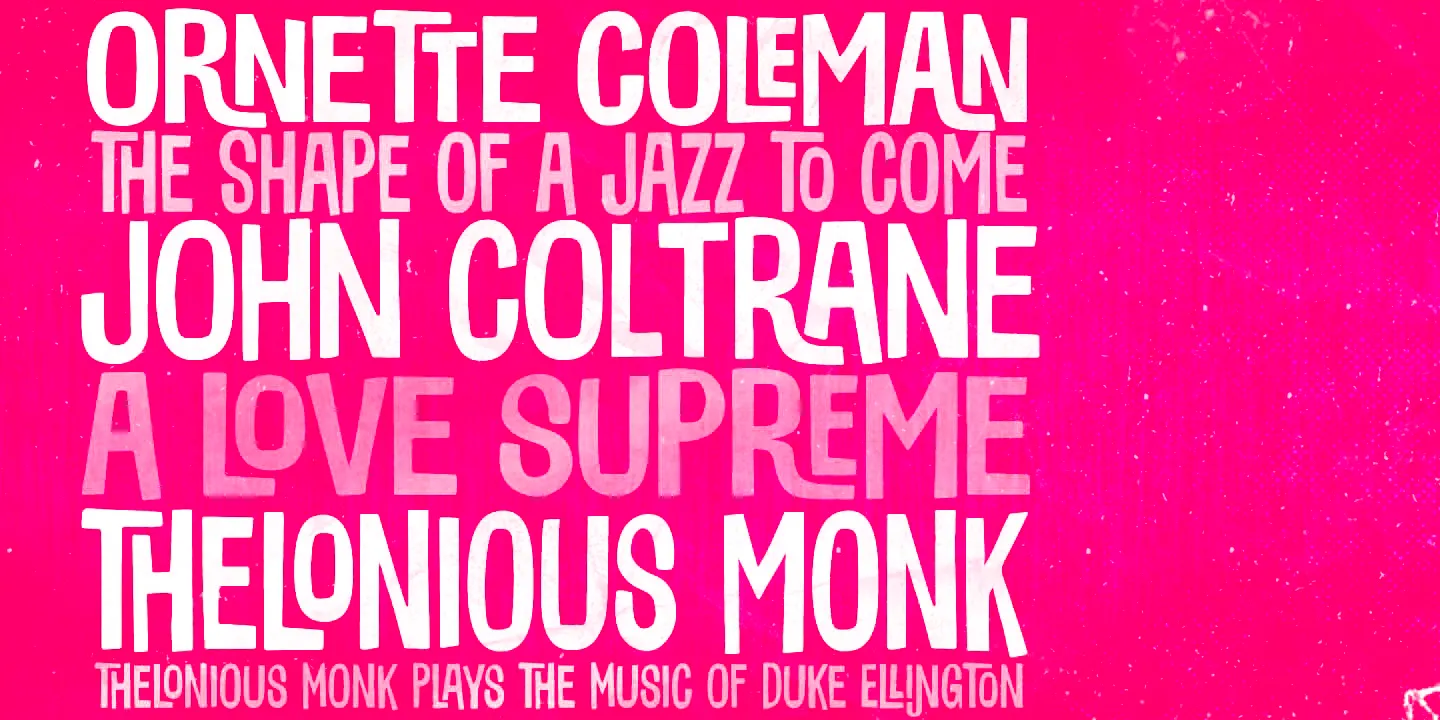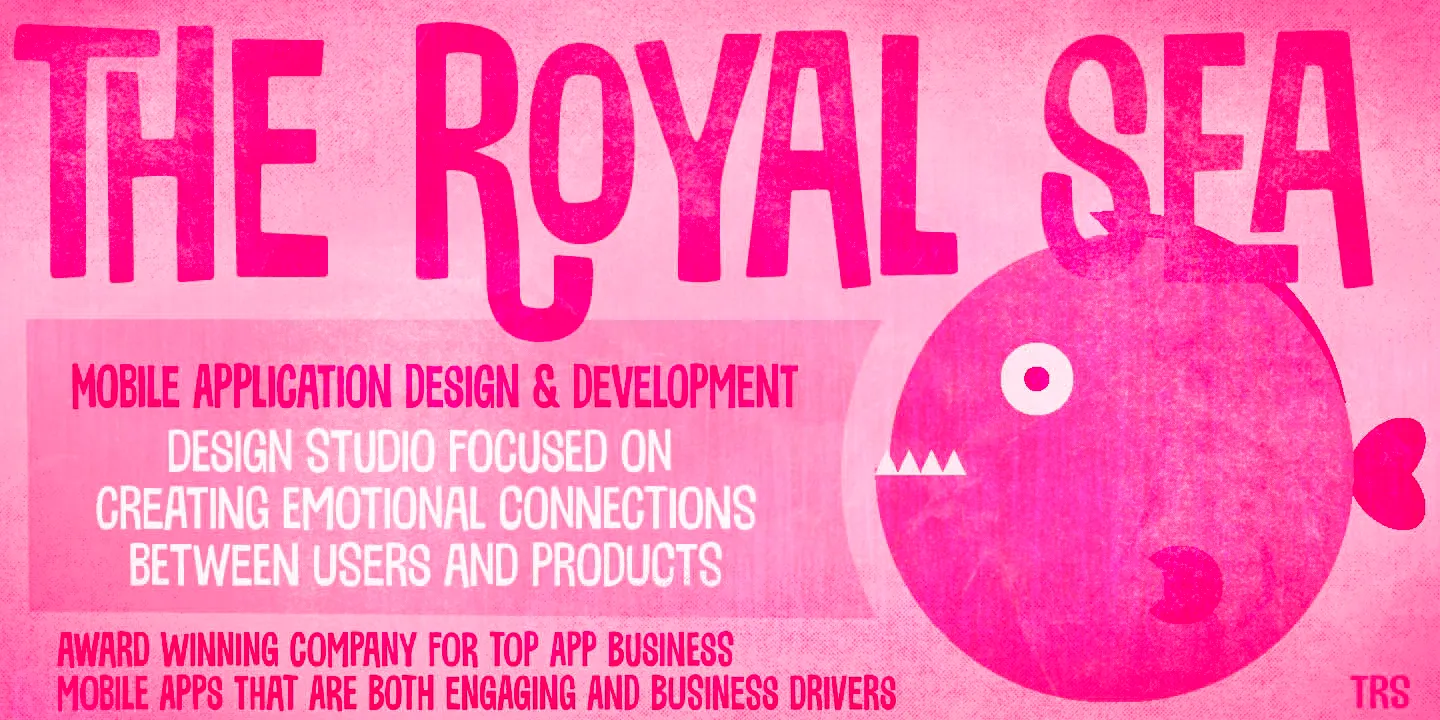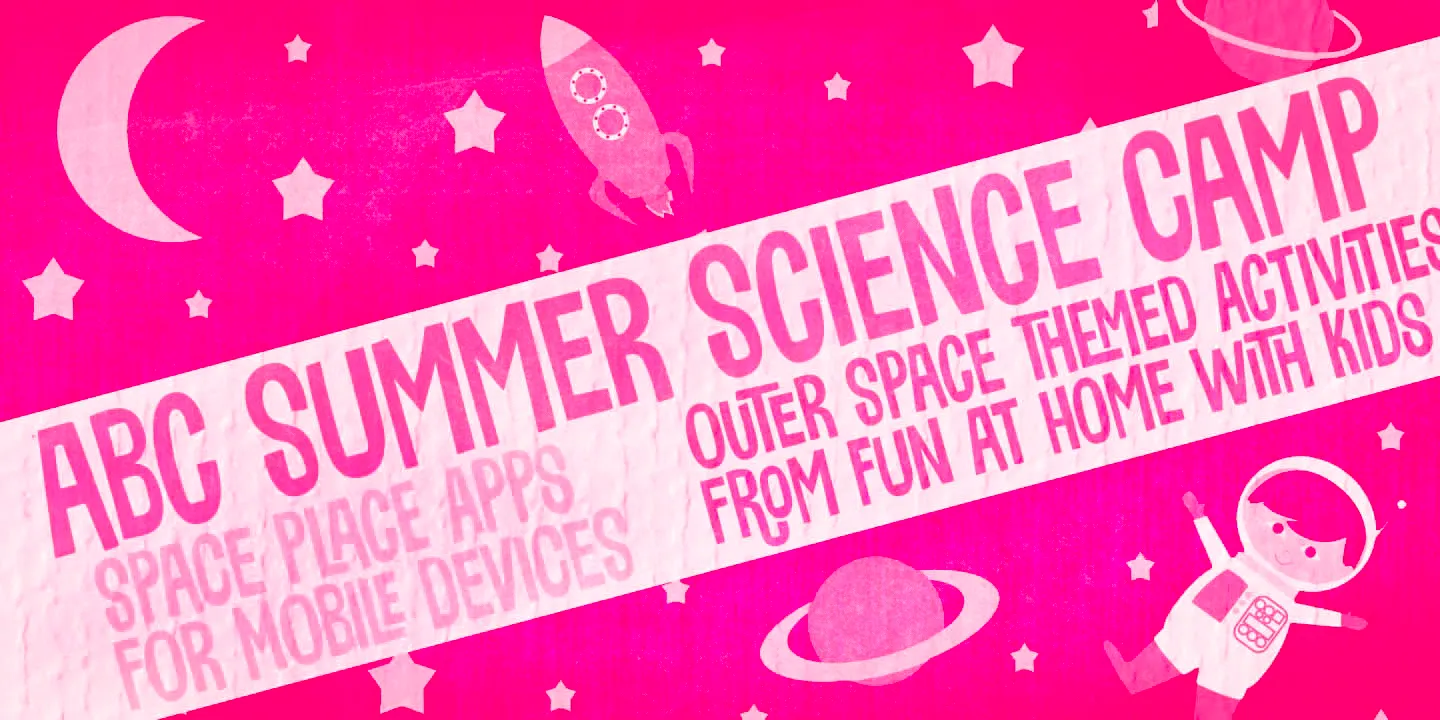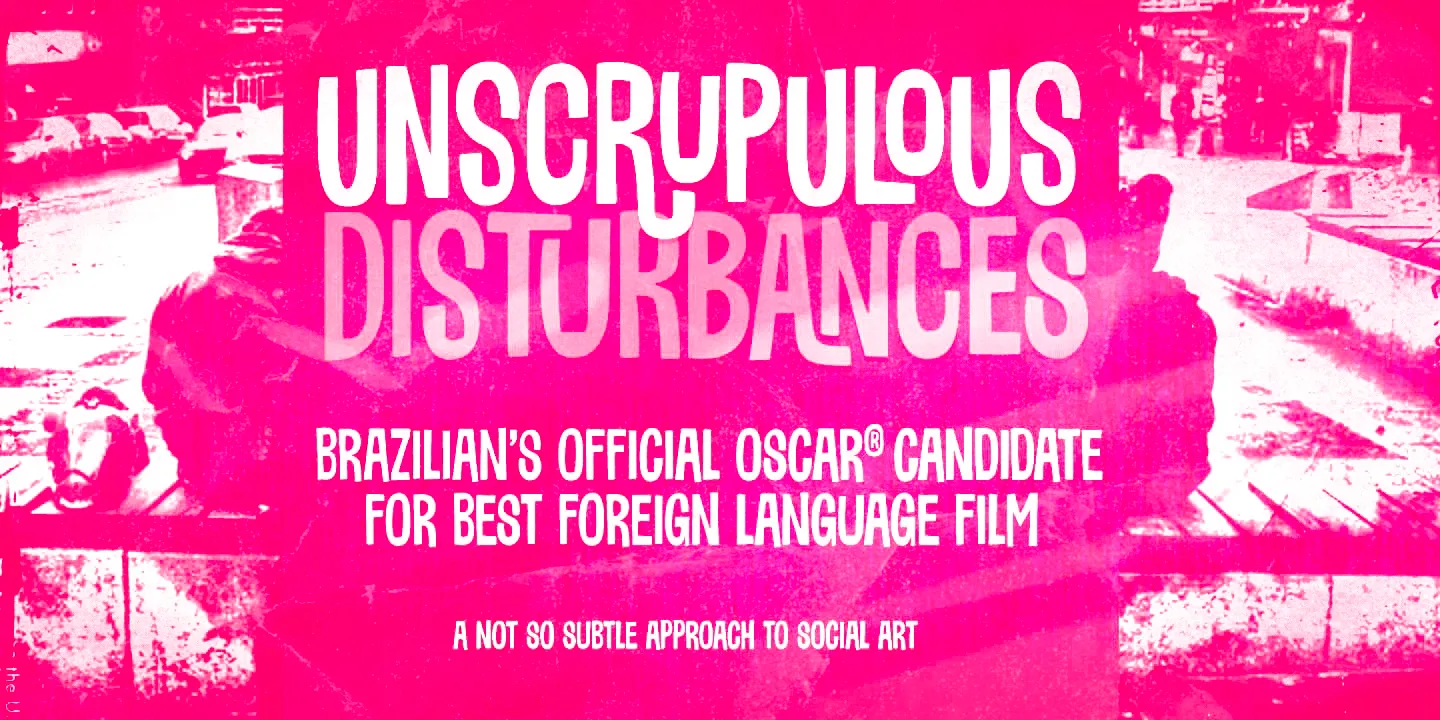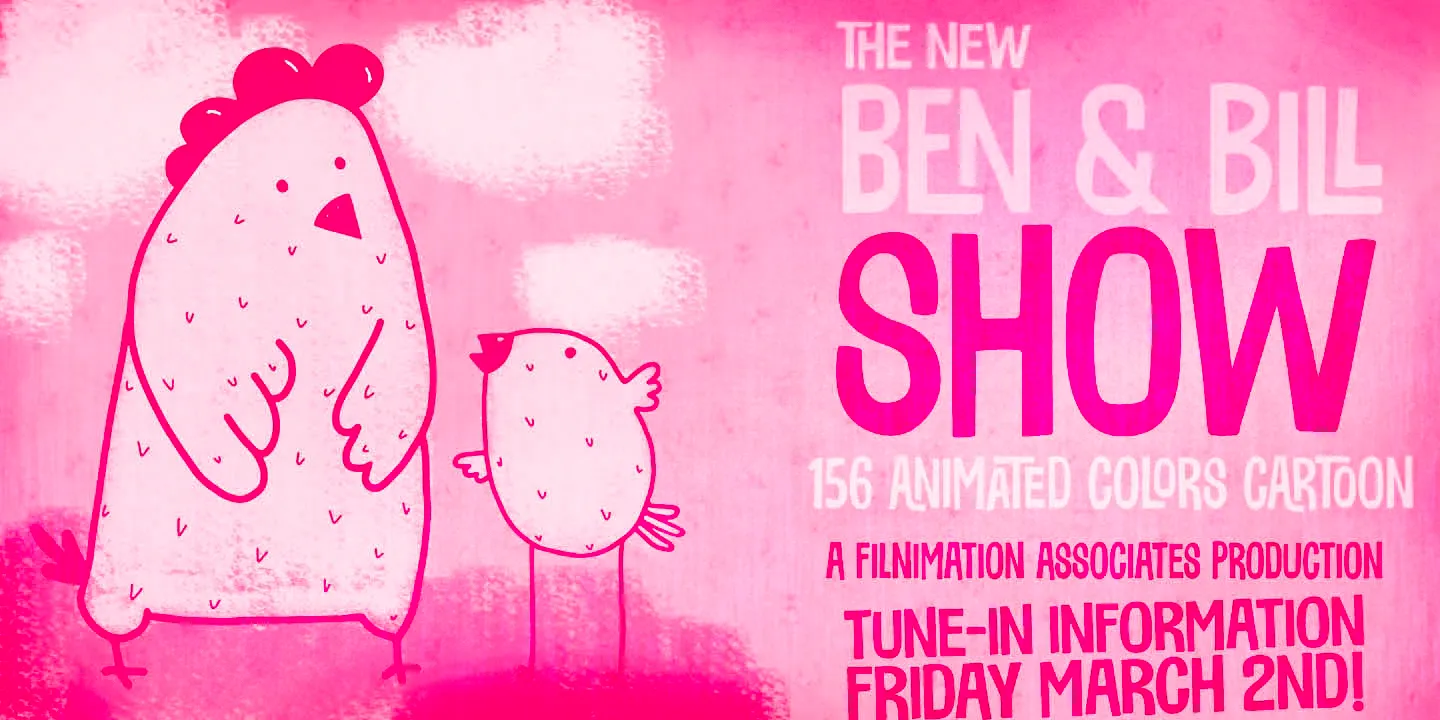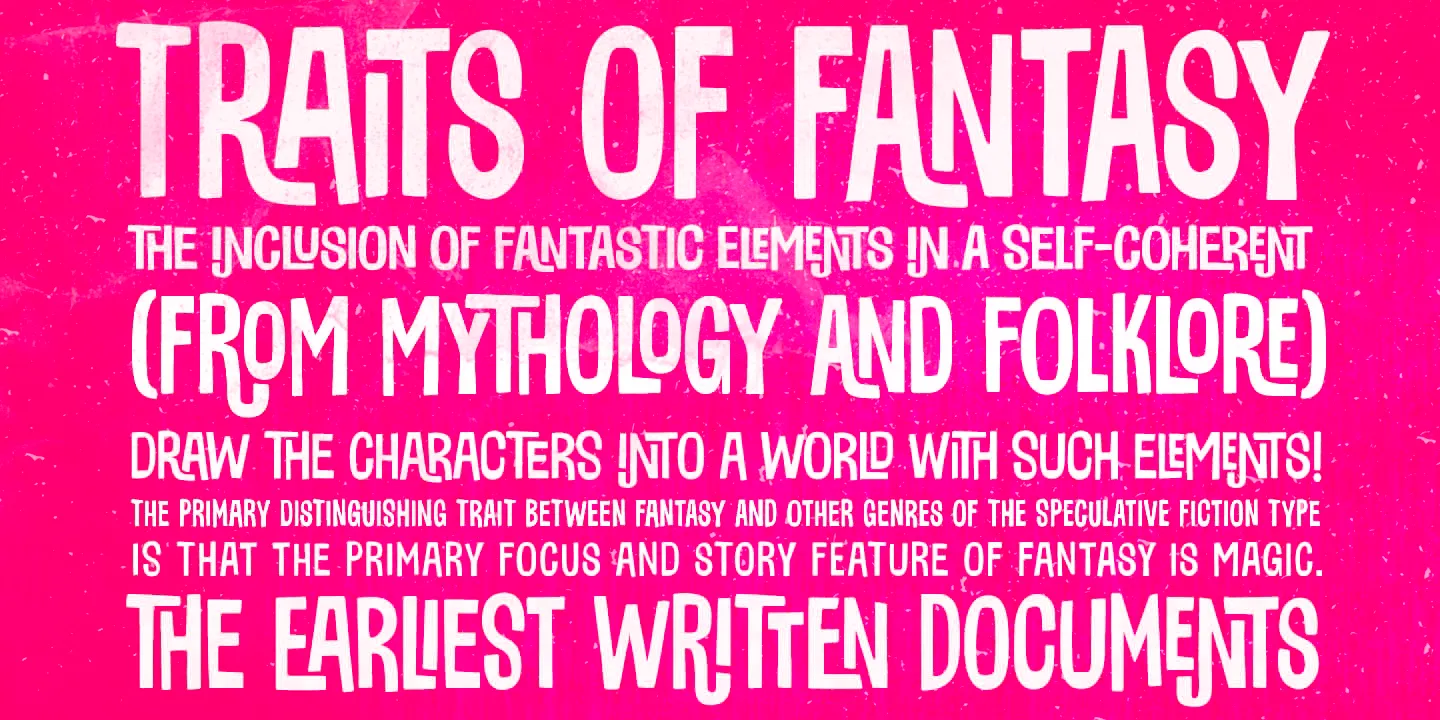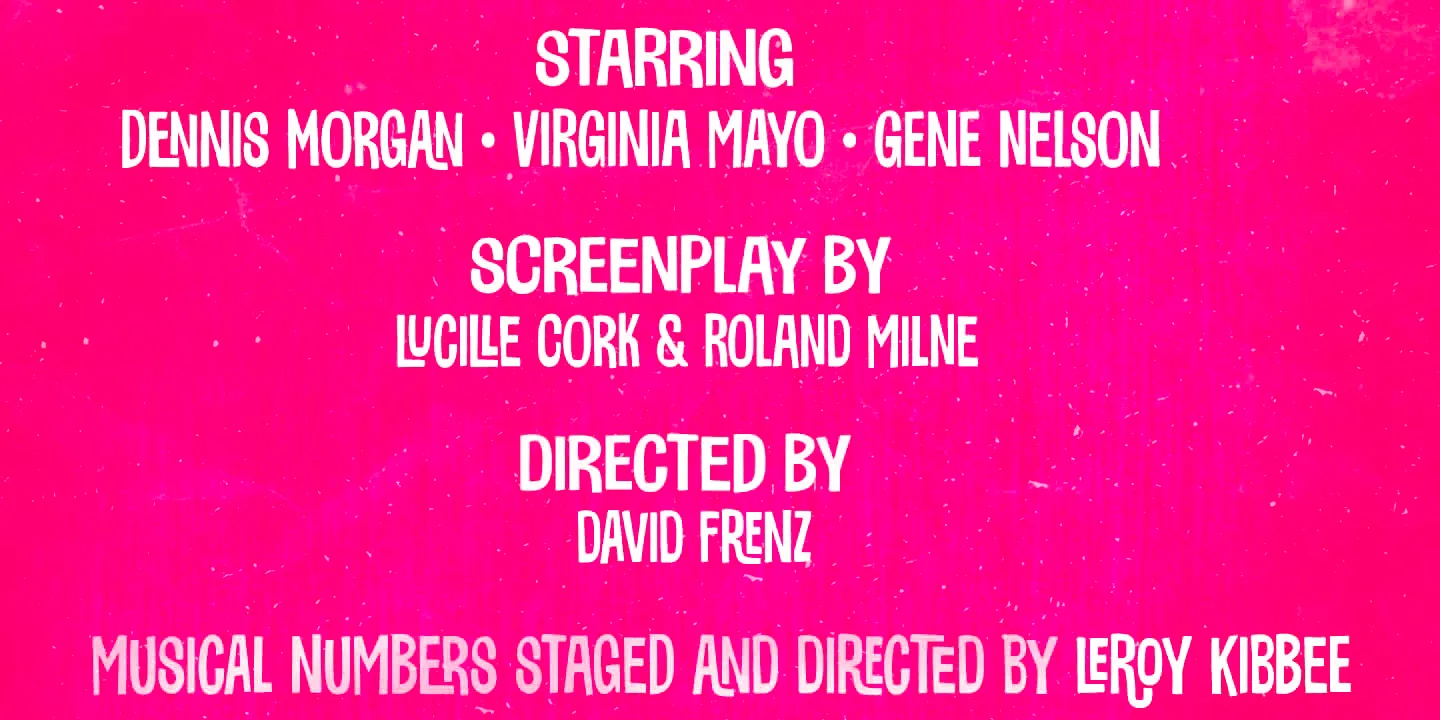
Sunbeat Fonts
• Sunbeat Regular
• Sunbeat Slow
• Sunbeat Strong
Sunbeat
Sunbeat is a quite groovy, hand-lettered display sans serif font. The irregularity of the letter shapes — available in three styles — gives it an upbeat, modern look and a downtempo, vintage vibe. Don’t miss the interlocking pairs for adding a quirky twist when you need it! Suitable projects would be toy packaging, food packaging, album covers, television titles, party invitations, and movie posters. But really, the possibilities are endless.